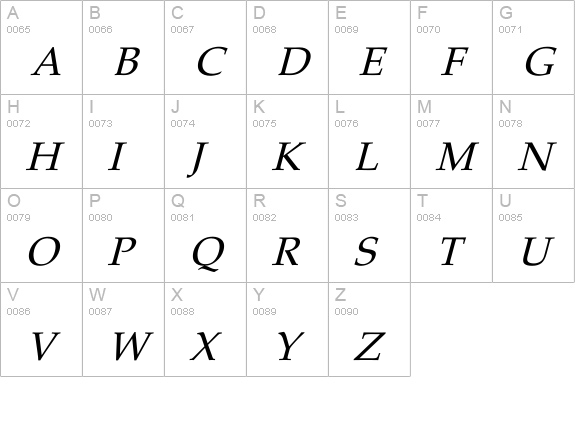
Pheasant Italic Font Details
Pheasant Italic is a distinctive, italic variant in the Pheasant typeface family \xE2\x80\x94 well suited to design and typography projects.
Introducing Pheasant Italic, a captivating and elegant font that exudes sophistication and finesse. Its delicate and slanted letterforms gracefully dance across the page, creating a harmonious and fluid aesthetic that is sure to make a lasting impression. Pheasant Italic is a versatile typeface that effortlessly blends traditional elegance with a modern twist. Its graceful curves and subtle serifs add a touch of class to any design project, whether it be for branding, editorial work, or personal projects. The italicized style brings a sense of movement and dynamism, making it perfect for conveying a sense of energy and creativity. This remarkable font is not only visually stunning but also incredibly practical. Its legibility and readability ensure that your message will be effortlessly conveyed to your audience, whether in print or on digital platforms. Pheasant Italic is designed with meticulous attention to detail, ensuring that each letter is perfectly balanced and harmonized with the others. One of the best aspects of Pheasant Italic is that it is available for free download at FontsMarket.com. This means that you can add this stunning font to your collection without breaking the bank. With its generous free availability, Pheasant Italic presents an incredible opportunity to elevate your design projects and create captivating visuals that leave a lasting impression. Embrace the elegance and versatility of Pheasant Italic and let your creativity soar. Download this beautiful font today at FontsMarket.com and unlock a world of possibilities for your design endeavors.